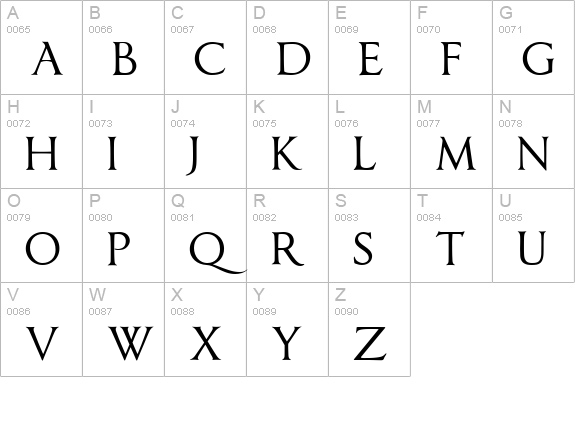
Imperator font is a striking typeface that exudes power, authority, and elegance. With its bold, sharp letterforms and strong presence, this font is perfect for creating impactful designs, whether it be for headlines, logos, or posters. What sets Imperator font apart is not just its impeccable design, but also the fact that it is freely available to download at FontsMarket.com. This means that you can access this remarkable font without any cost, making it an excellent choice for designers on a budget or those simply looking for high-quality fonts without breaking the bank. With Imperator font, you can effortlessly elevate your designs and captivate your audience. Its clean lines and balanced proportions make it highly legible, ensuring that your message is conveyed with utmost clarity. Whether you're designing for print or digital media, Imperator font will make a lasting impression. Whether you're working on a professional project or a personal endeavor, Imperator font is a versatile typeface that can be adapted to various design styles and themes. Its timeless appeal and versatility make it a go-to choice for designers across different industries. So, why wait? Head over to FontsMarket.com and download Imperator font for free. This is a limited-time offer, so make sure to take advantage of this opportunity and add a touch of grandeur to your designs with this remarkable font.